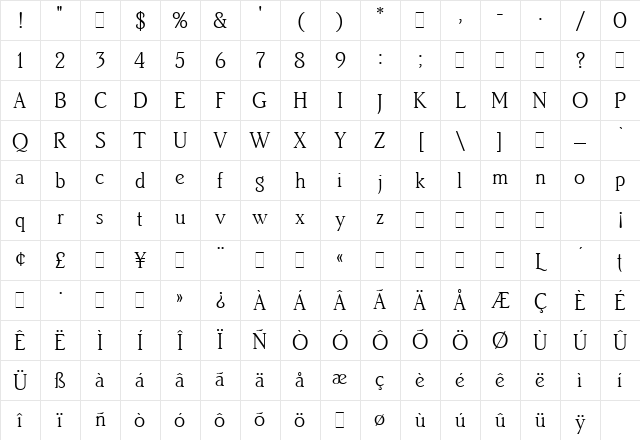
Brighton Light Free Font
Brighton Light
Brighton Family
Complete Brighton Light glyph index. Displaying only characters natively supported by Brighton Light font.
Design Context for Brighton
Brighton is a composed and adaptable typeface that performs quietly and consistently across a wide range of design contexts. Its slender proportions lend an understated elegance to any composition.